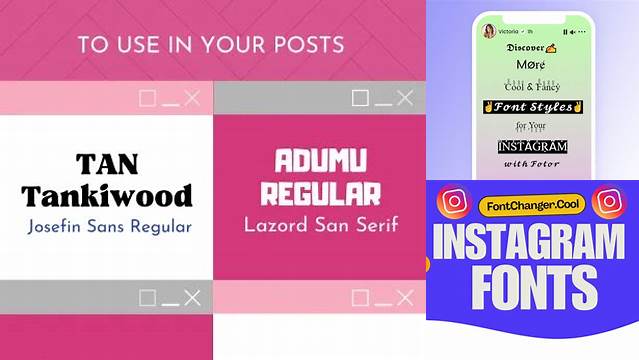
Instagram Poster Fonts: Find Similar Styles
Hey guys! Ever scrolled through Instagram and seen a poster design that just screams awesome? You're not alone! Finding the perfect font can really make your content pop. But what happens when you don't know the exact font used? Don't worry, we've all been there. That's why we're diving deep into the world of Instagram poster fonts and how to find similar styles that will give your own posts that same eye-catching appeal. Ready to level up your Instagram game? Let's get started!
Exploring Fonts Like Those Seen on Instagram Posters
Finding fonts similar to those you see on Instagram posters involves a bit of detective work, but it's totally doable! Instagram poster fonts often vary wildly, from classic serifs to modern sans-serifs and even hand-drawn scripts. Understanding the characteristics of the fonts you admire will help you narrow down your search. Look at the font's weight (is it bold or light?), its style (is it playful or serious?), and its overall impression. Is it clean and minimalist, or is it full of character and quirks? These observations are your clues.
Once you have a good idea of what you're looking for, you can use online font identification tools. These tools allow you to upload an image of the text, and they'll analyze it to suggest similar fonts. Some popular options include WhatTheFont and Font Matcherator. You can also browse font libraries like Google Fonts, Adobe Fonts, and MyFonts, filtering by style, weight, and other characteristics to find alternatives that capture the same vibe. Remember, the goal isn't necessarily to find an exact match, but rather a font that evokes a similar feeling and complements your overall design. Experiment with different options until you find the perfect fit for your Instagram poster fonts!
Identifying Popular Font Styles on Instagram
Identifying popular font styles on Instagram can be a game-changer for your content creation. By understanding the trends and preferences of designers and users on the platform, you can choose fonts that resonate with your target audience and enhance the visual appeal of your posts. One of the most popular font styles on Instagram is the sans-serif font. These fonts are known for their clean lines, readability, and modern aesthetic, making them ideal for a variety of purposes, from headlines to body text. Some popular sans-serif fonts include Montserrat, Open Sans, and Lato.
Another font style that is gaining popularity on Instagram is the serif font. Serif fonts are characterized by the small decorative strokes, or serifs, that appear at the end of each letter. These fonts have a more traditional and elegant look, making them suitable for projects that require a touch of sophistication. Some popular serif fonts include Playfair Display, Merriweather, and Georgia. In addition to sans-serif and serif fonts, script fonts are also widely used on Instagram, particularly for creating eye-catching headlines and captions. Script fonts mimic the look of handwriting, adding a personal and creative touch to your designs. Some popular script fonts include Pacifico, Lobster, and Brush Script MT. Finally, display fonts, which are designed to be used in large sizes, are another popular option for Instagram posters. These fonts often feature unique and decorative designs, making them perfect for grabbing attention and conveying a specific message. Some popular display fonts include Bebas Neue, Impact, and Anton.
Finding Free Font Alternatives
Another trick is to use font identification tools to find a similar font and then search for a free alternative to that font. For example, if you identify a font as being similar to Helvetica, you could search for "free alternative to Helvetica" and find fonts like Roboto or Open Sans. These fonts offer a similar clean and modern look without costing you a dime. Don't be afraid to experiment and try out different combinations until you find the perfect free fonts for your Instagram poster fonts! The possibilities are endless, and with a little creativity, you can create stunning designs without spending a fortune.
Using Font Identification Tools
Okay, so you've spotted an awesome font on an Instagram poster fonts and you're dying to know what it is. This is where using font identification tools comes in super handy! These tools are like detectives for fonts, helping you uncover the mystery behind those captivating letterforms. The most popular tool is WhatTheFont by MyFonts. Simply upload a screenshot of the text, and it will analyze the image and suggest fonts that are similar or even an exact match. It's surprisingly accurate, especially if the image is clear and the text is well-defined.
Another great option is Font Matcherator by Fontspring. This tool works in a similar way, allowing you to upload an image and identify the font. It also offers advanced features like the ability to specify certain characteristics of the font, such as its weight or style, to narrow down the search results. If you're using Adobe Photoshop or Illustrator, you can also use the Match Font feature, which is integrated directly into the software. This feature analyzes the selected text and suggests fonts that are available in your Adobe Fonts library. Keep in mind that these tools aren't always perfect, especially if the image quality is poor or the font is heavily stylized. But they're a great starting point for your font search and can save you a ton of time and effort.
Matching Fonts to Your Brand
Matching fonts to your brand is crucial for creating a cohesive and recognizable visual identity. Your fonts should reflect the personality and values of your brand, whether it's playful, professional, or edgy. Think about your target audience and the message you want to convey. Are you trying to appeal to a younger demographic with a fun and energetic vibe? Or are you aiming for a more sophisticated and trustworthy image for a corporate audience? The fonts you choose should align with these goals.
Develop your own unique style. What makes your typography stand out from the crowd? What are your signature fonts, colors, and text effects? Practice, practice. The more you work with typography, the better you'll become at it. Experiment with different tools and techniques, and don't be afraid to make mistakes. Get feedback from other designers and learn from their experiences. Follow designers and brands that you admire and pay attention to the typography they use in their posts. Stay up-to-date on the latest trends and technologies in the world of typography. Attend workshops, read books and articles, and participate in online communities. Mastering the art of typography is a lifelong journey. But with dedication, practice, and a passion for design, you can create Instagram posters that are both visually stunning and highly effective in your Instagram poster fonts.